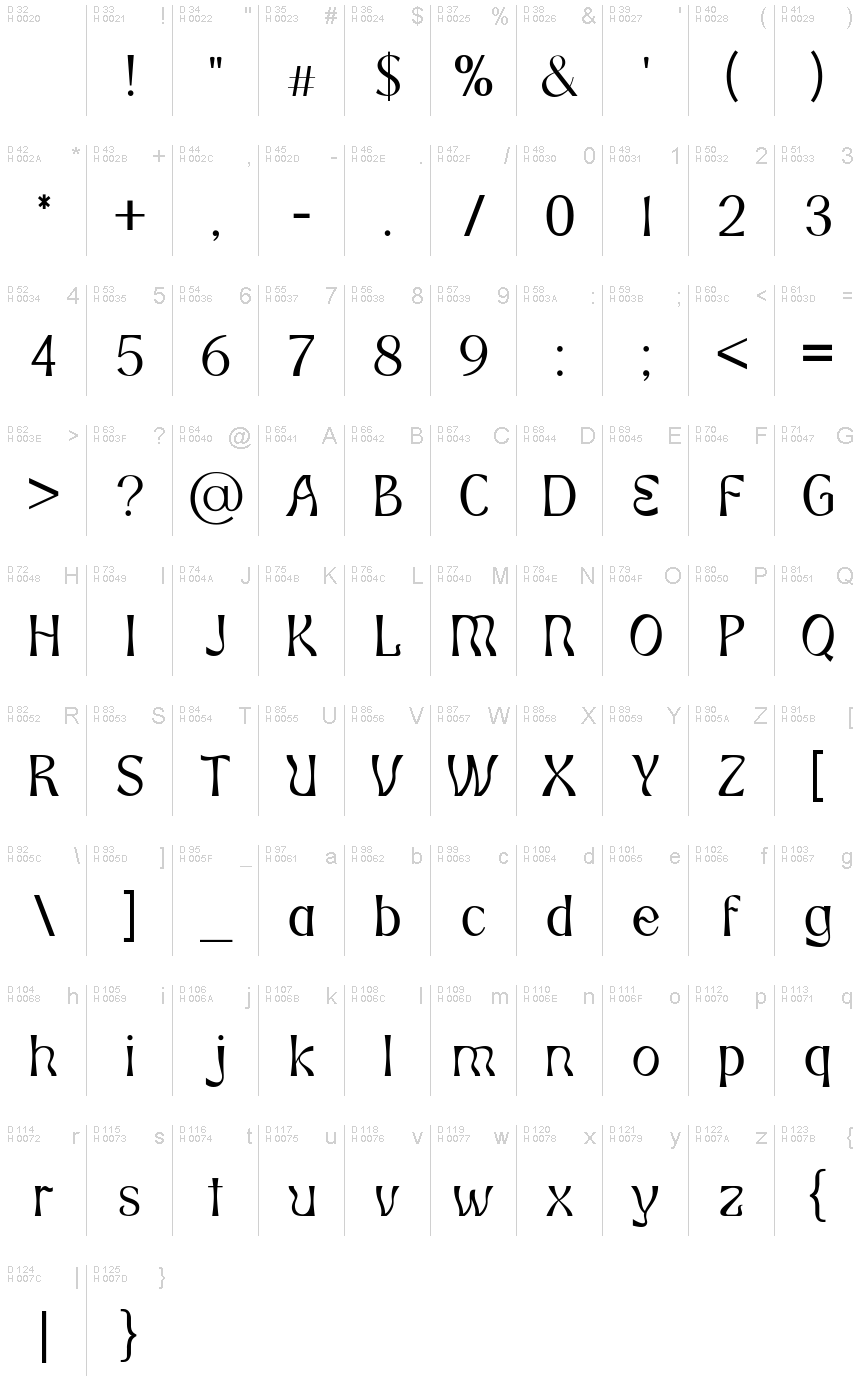
Gymphow
Gymphow, a captivating display font crafted by UI Creative, exudes a harmonious blend of distortion and elegance. Its distinctive letterforms captivate the eye, inviting the viewer on a journey through its intricate, organic shapes. The font's unapologetic presence commands attention, effortlessly evoking a sense of intrigue and introspection. Gymphow's versatility lies in its ability to seamlessly transition between bold statements and delicate compositions, making it a versatile choice for diverse design projects.
This font's unique character lends itself well to branding and identity design, where its dynamic appearance can elevate visual narratives and leave a lasting impression. Gymphow's distorted aesthetic also makes it an excellent choice for editorial layouts, event materials, and experimental typography, allowing designers to push the boundaries of traditional typographic norms.